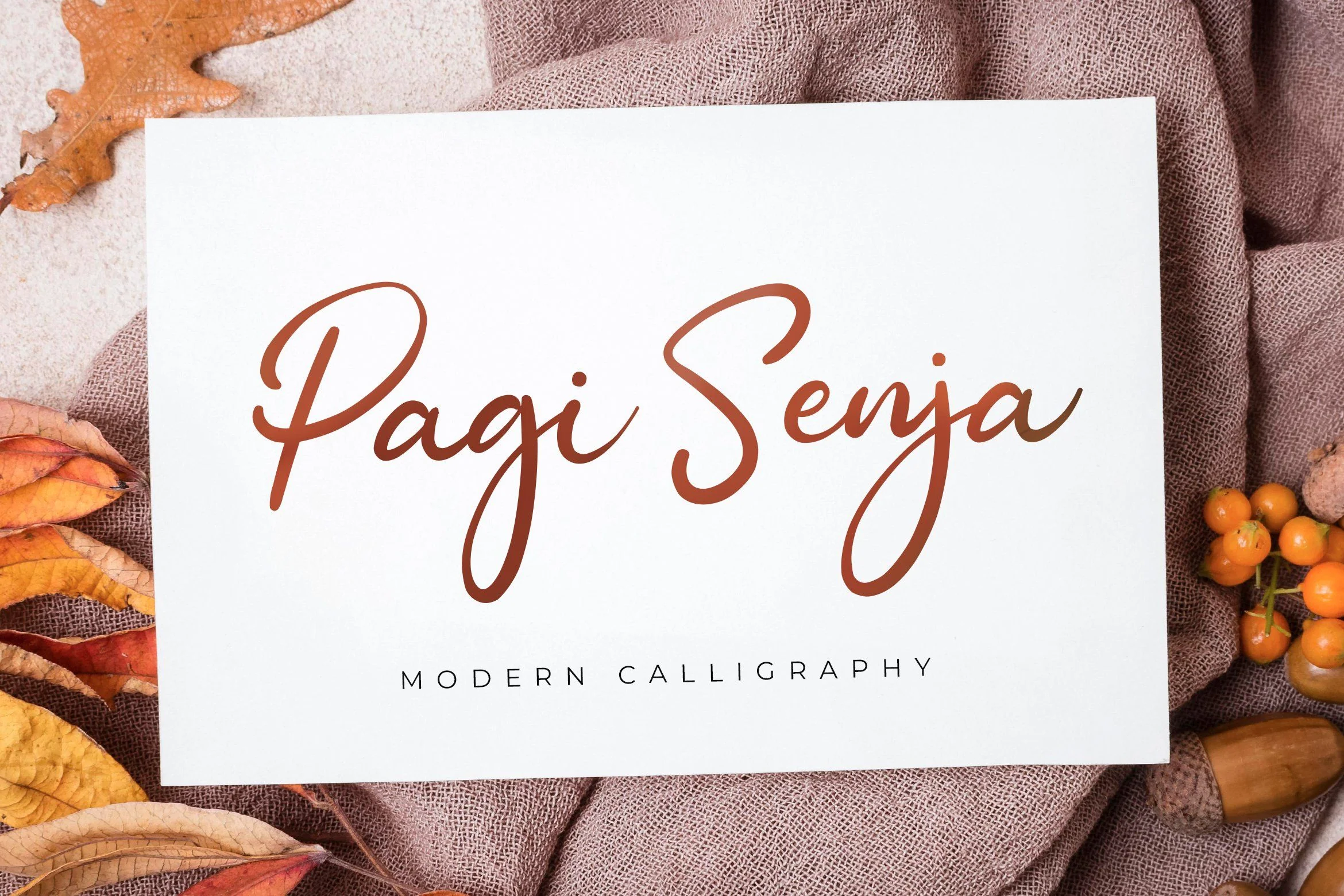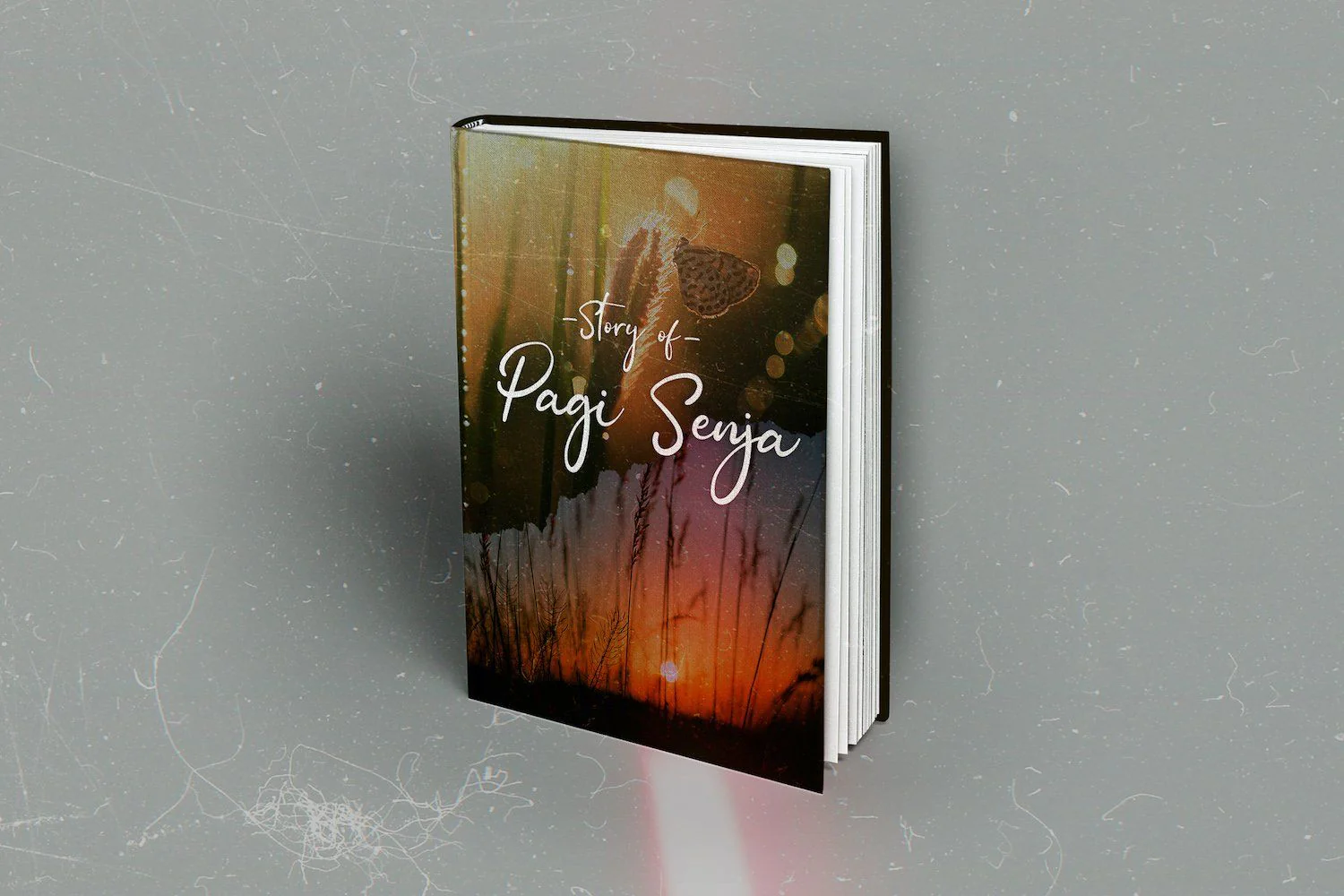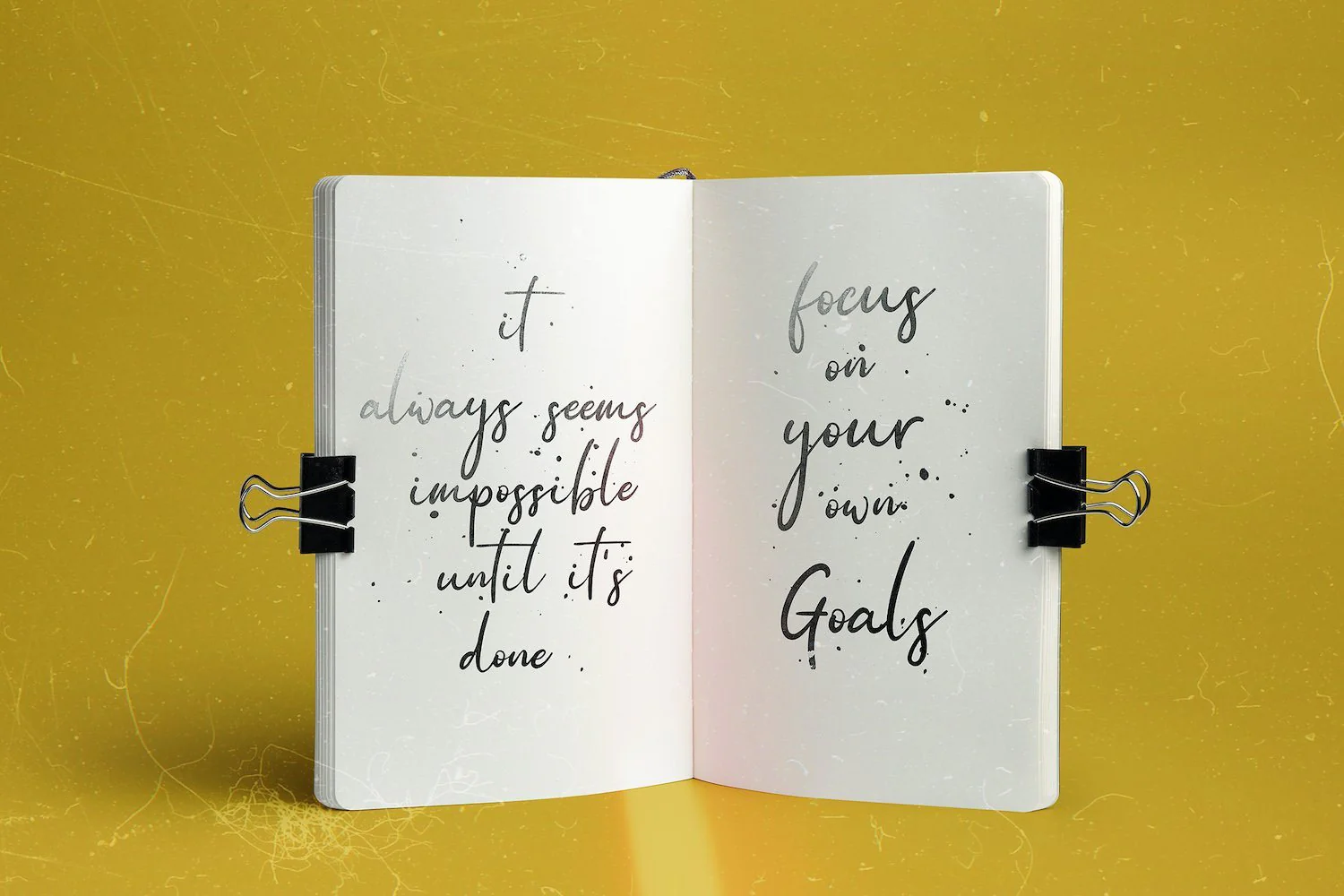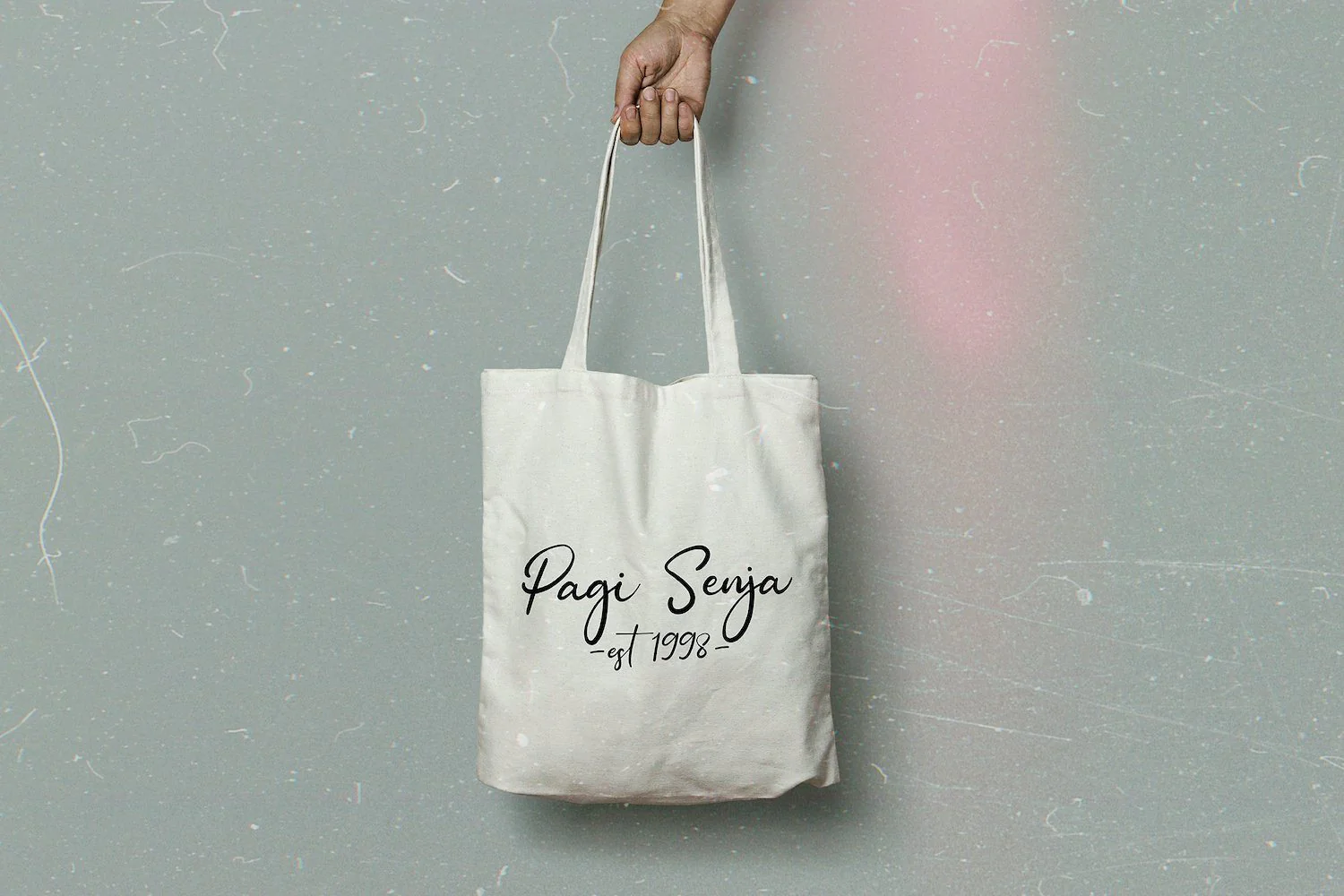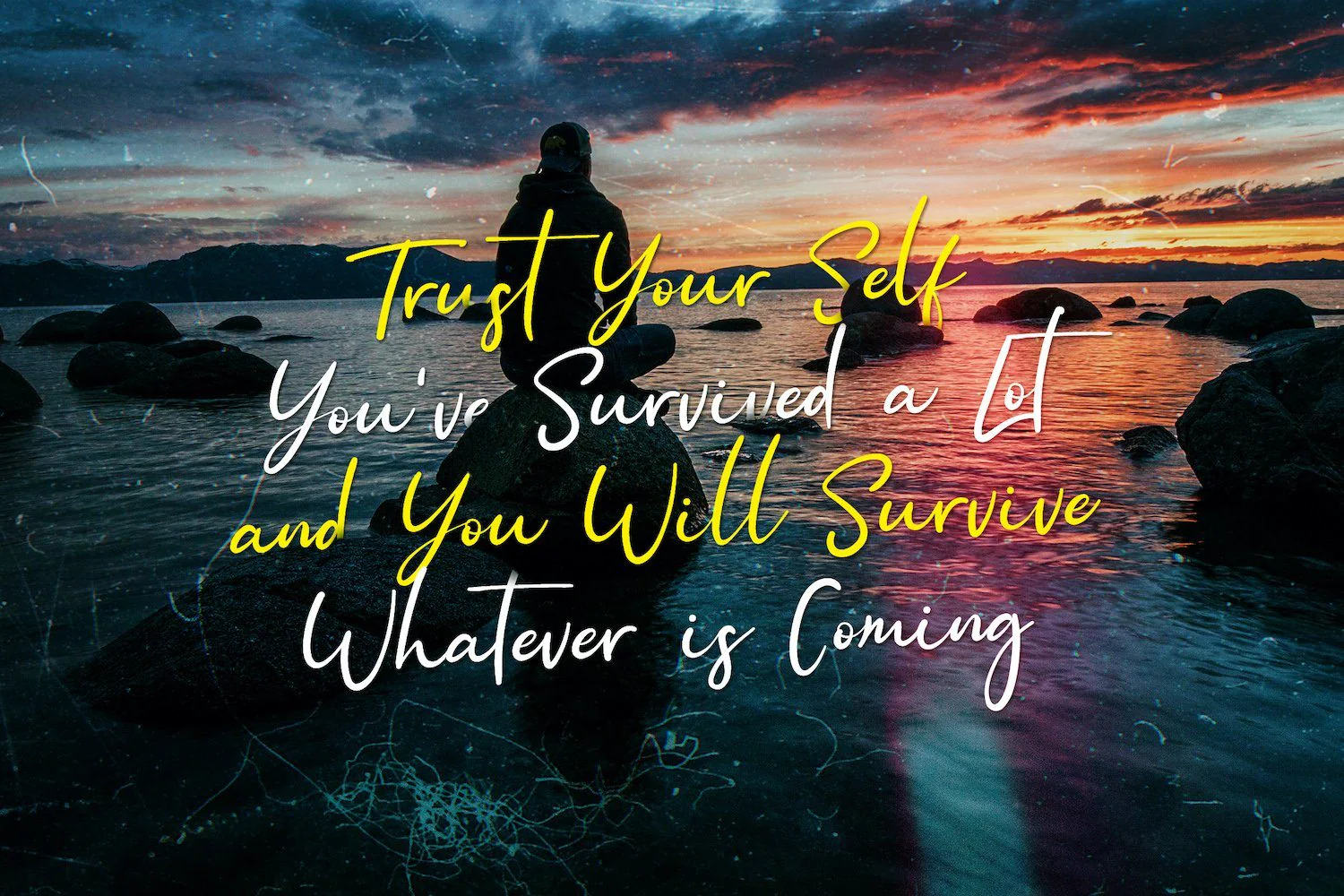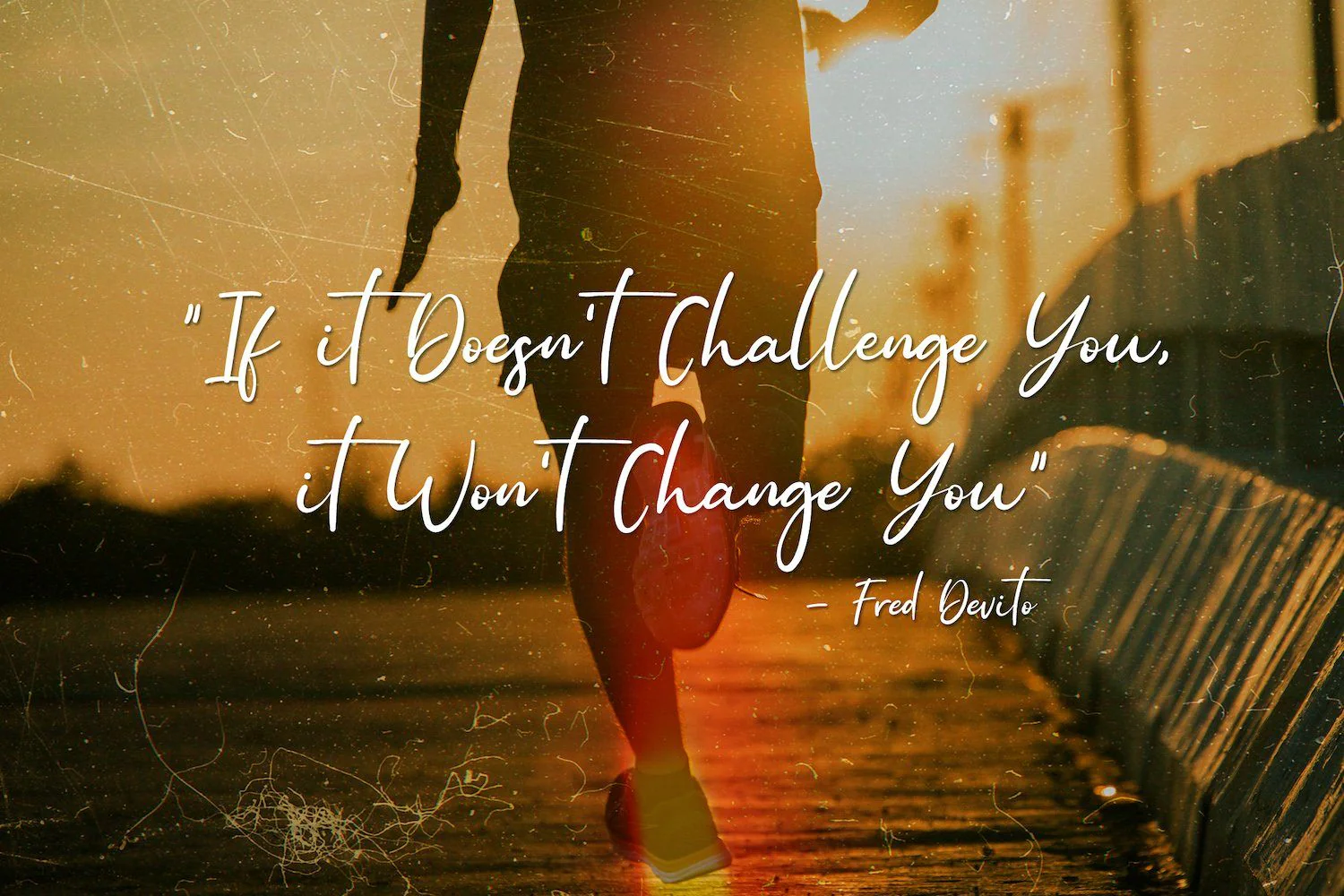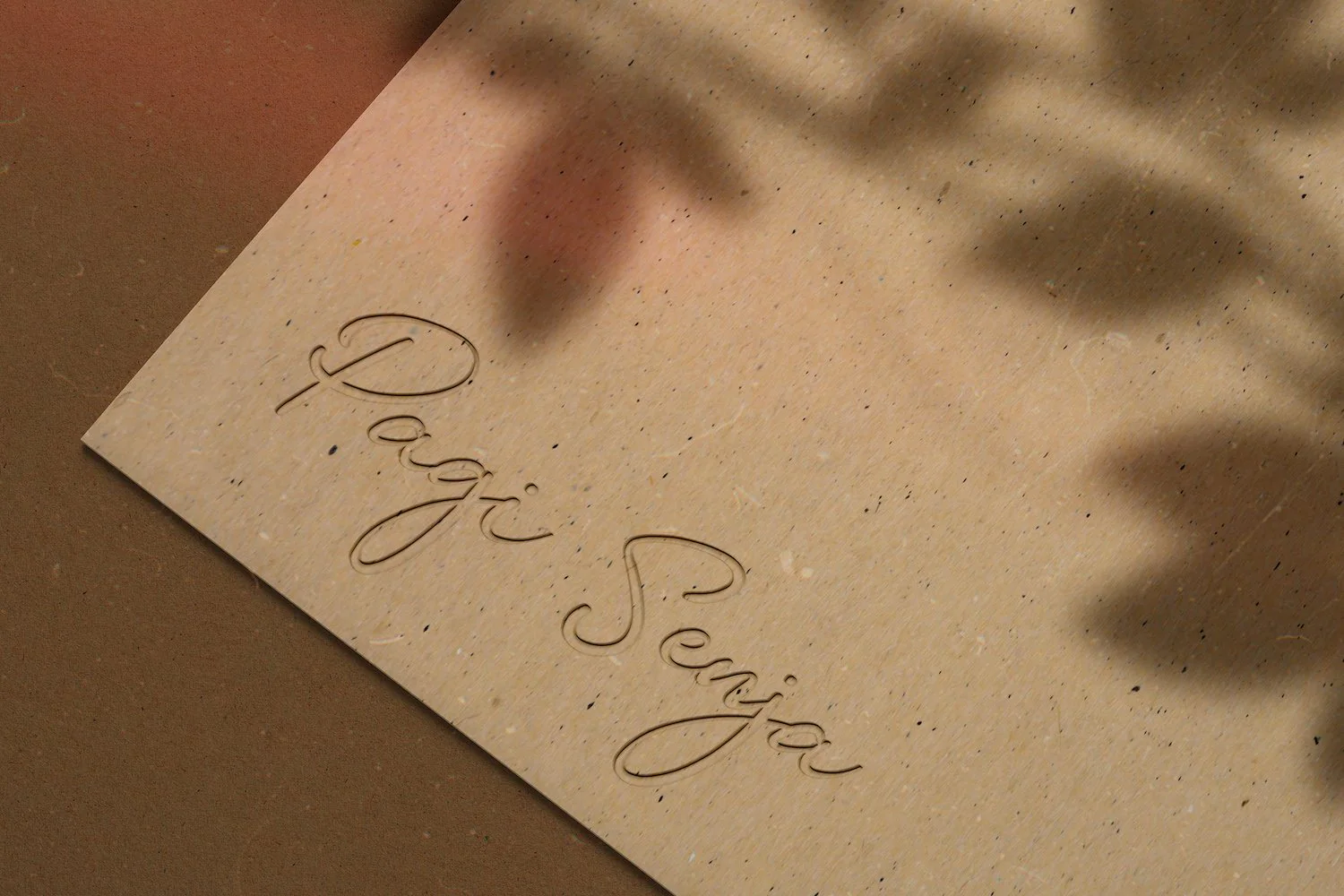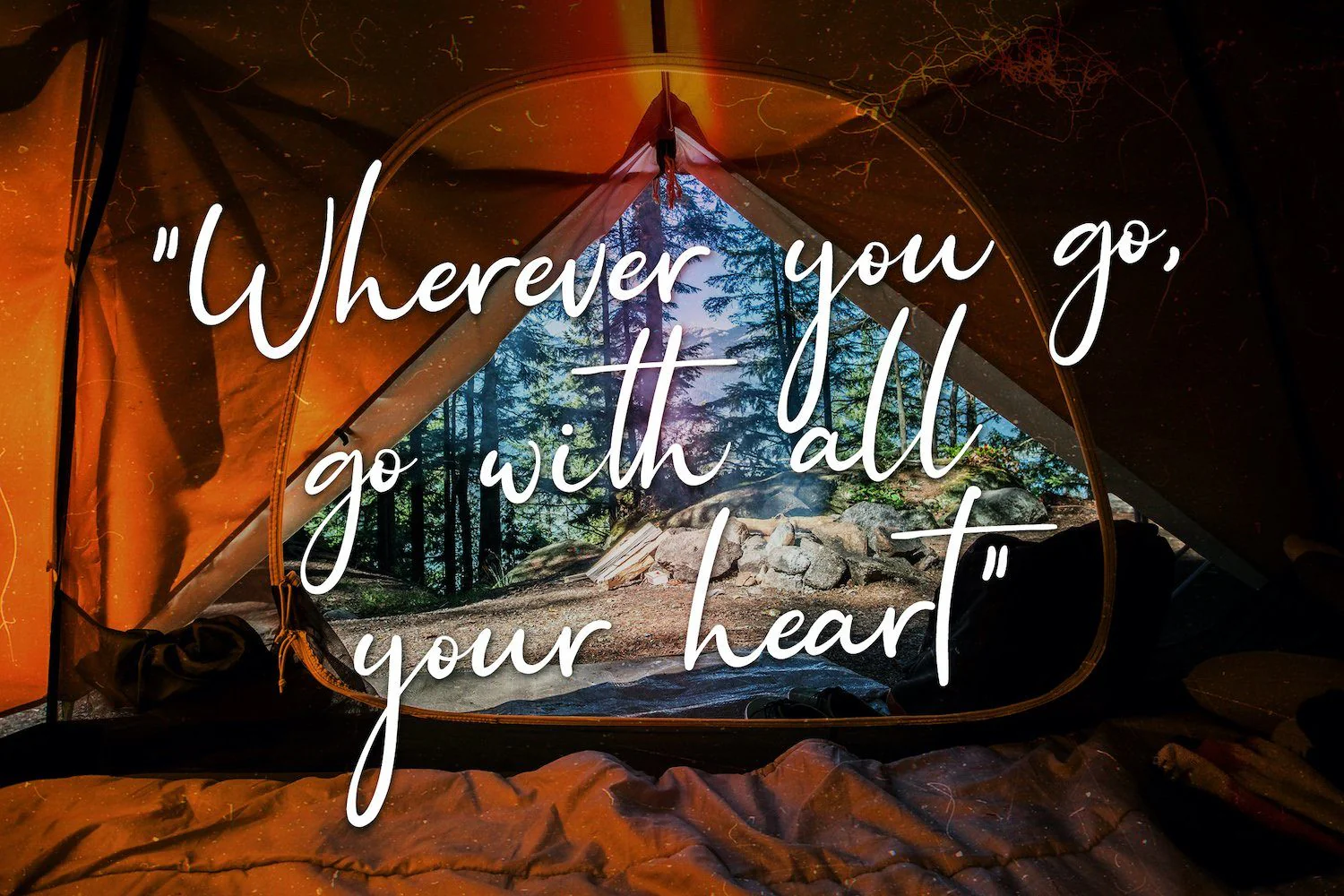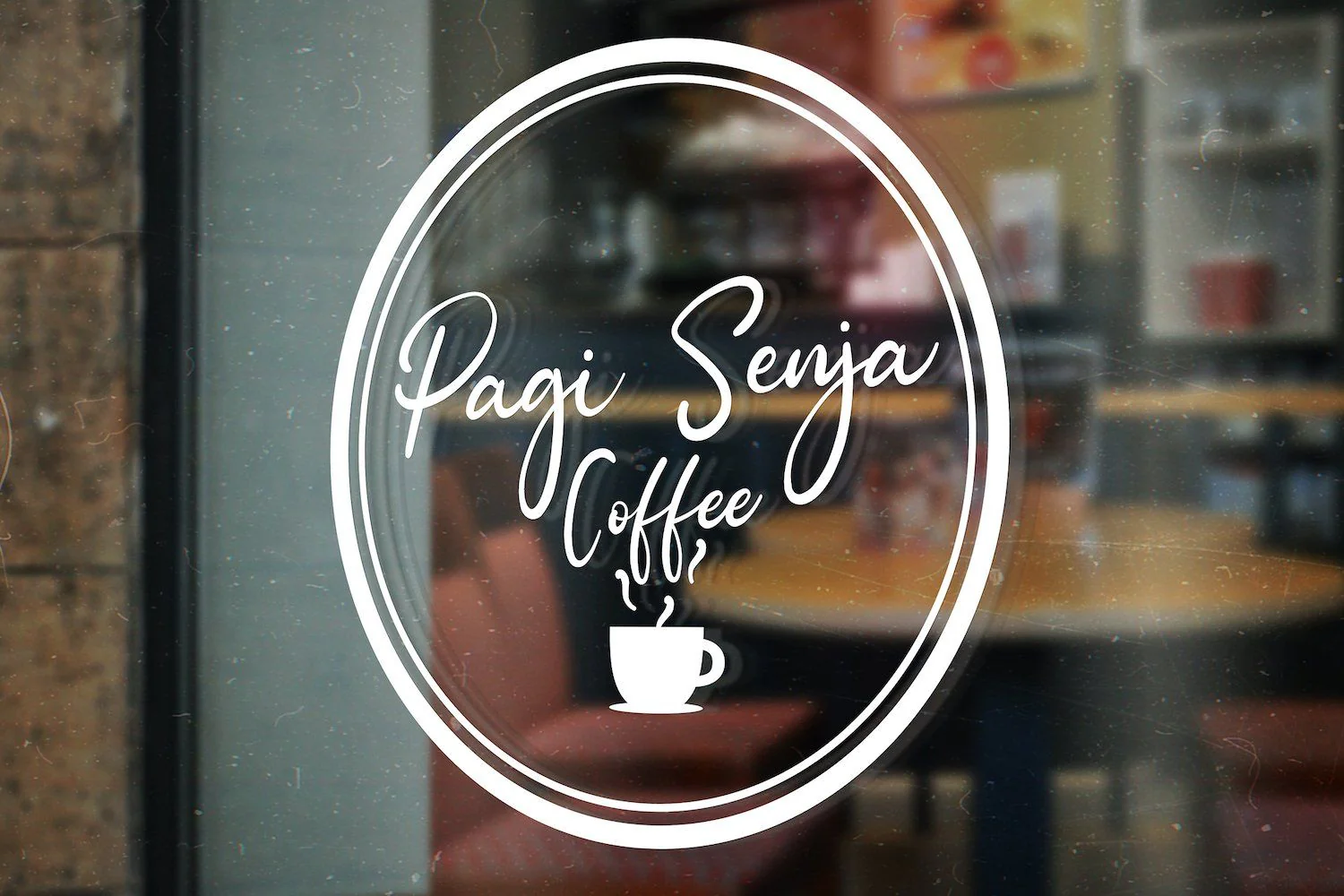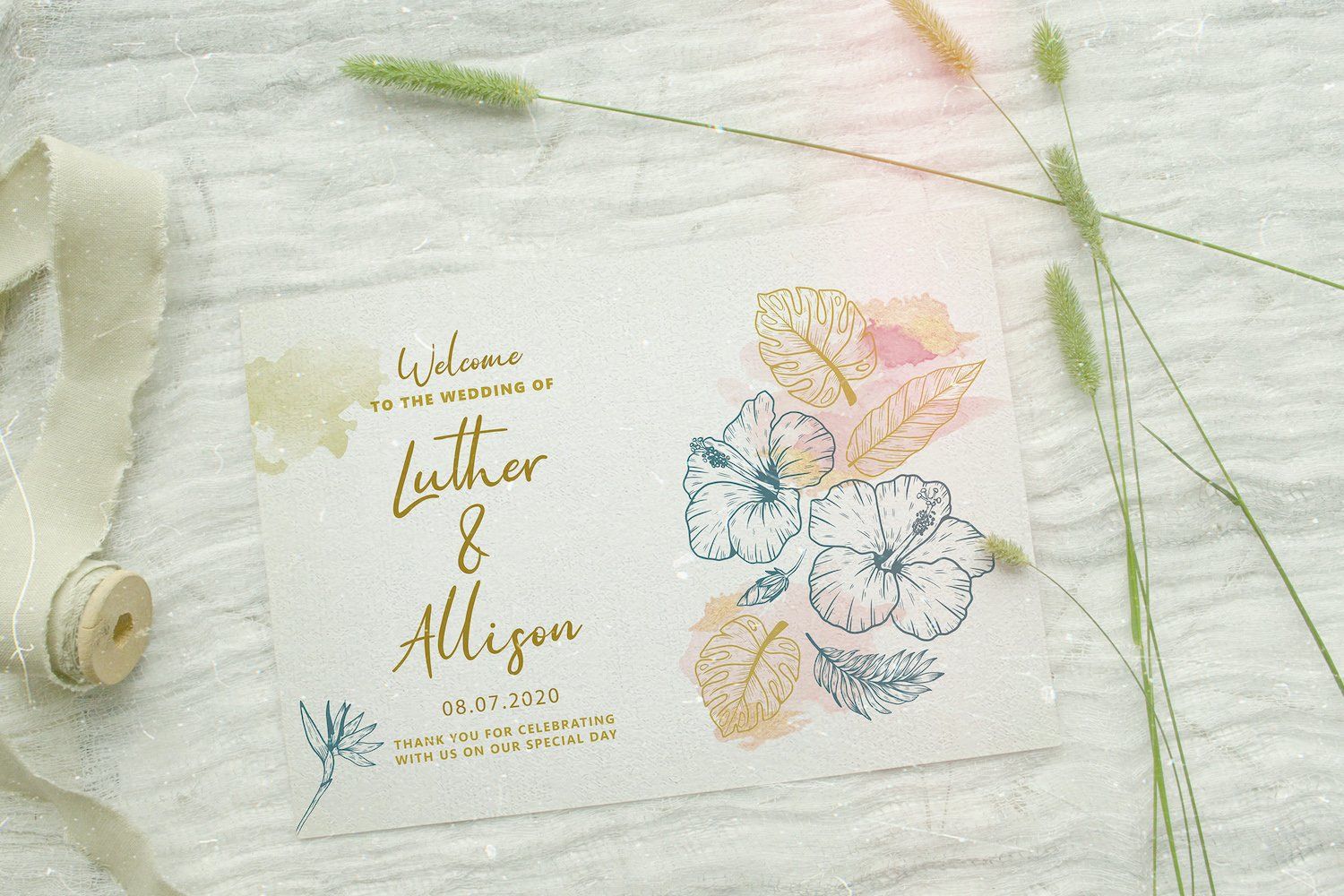
Pagi Senja - Calligraphy Font
Introducing Pagi Senja - Calligraphy Font
Pagi Senja is a flowing handwritten font, described by an elegant touch, perfect for your favorite projects. Fall in love with its incredibly distinct and timeless style and use it to create spectacular designs!